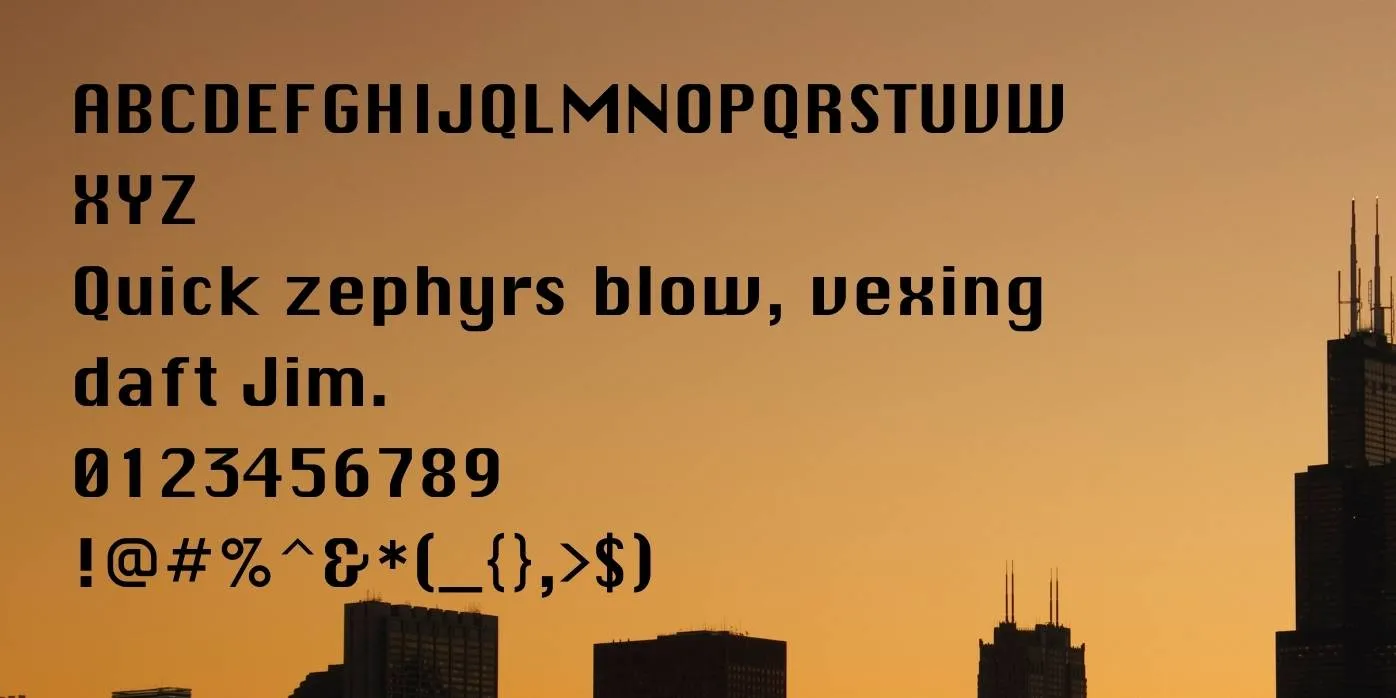
Chicago Font
Chicago Font is a unique typeface with pretty cool round corners and condensed letters that belongs to a Sans Serif typeface family. The designer of this typeface is Casady & Greene. It has many useful characters and is free for personal use only. The condensed sans serif typeface has Uppercase and Lowercase letters, Numbers and Numerals, and some useful symbols also.
Its character has a pretty cool condensed look that provides the best performance to the user and it supports many international languages.